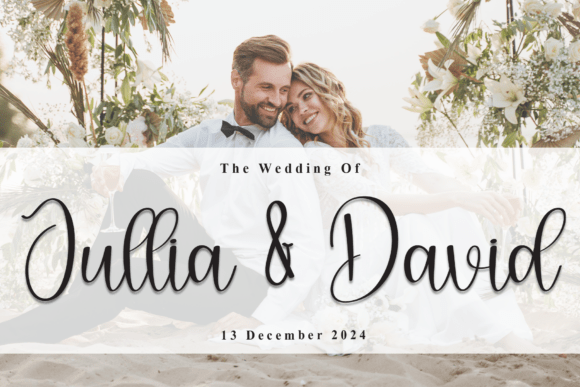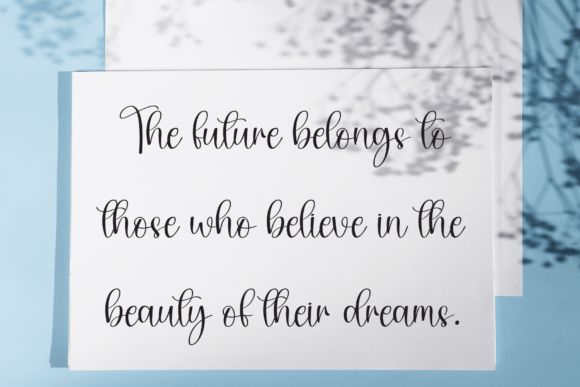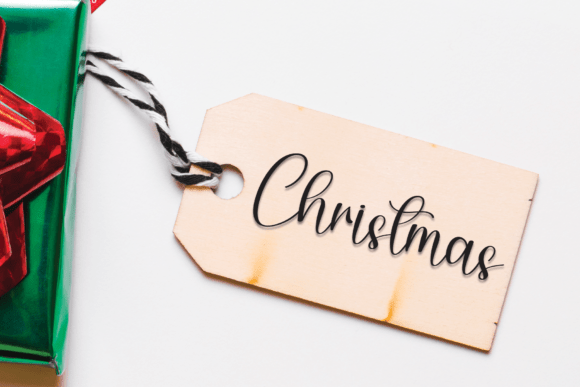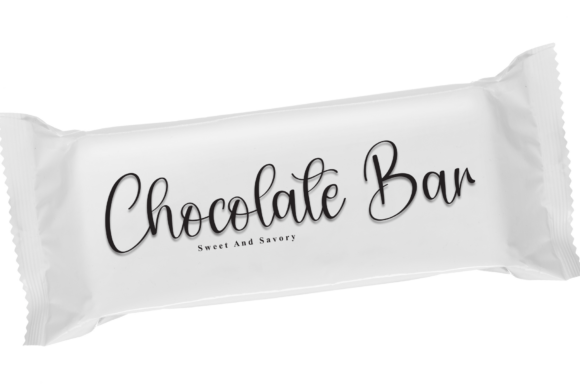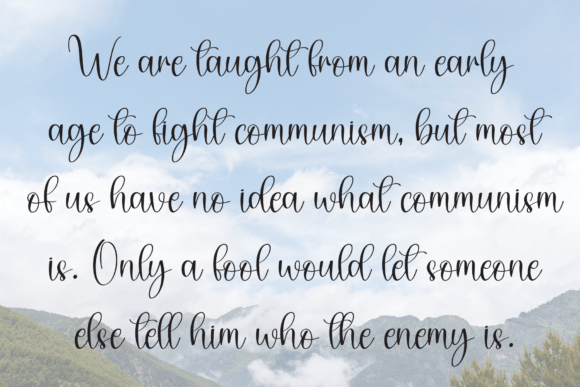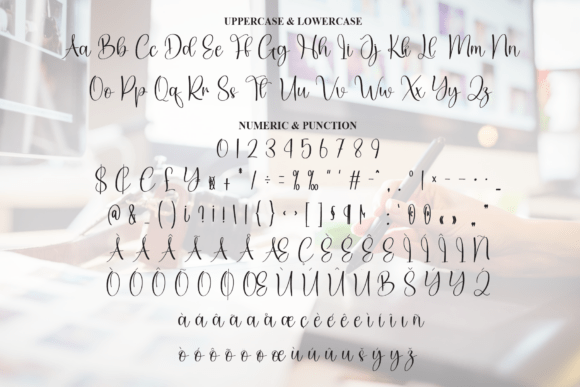
The Autography Font: Elevating Designs with Elegance and Charm
I’ll never forget the time I was working on a branding project for a luxury wedding planner. My client wanted a font that exuded sophistication, yet had a personal touch. I scoured the internet, tried countless fonts, but nothing seemed quite right. That was until I stumbled upon Autography – a stylish handwritten script font that instantly caught my eye. Its flowing strokes and organic curves brought a level of warmth and refinement that perfectly captured the essence of my client’s brand.
An Honest Review of Autography
So, what makes Autography so special? Let’s dive into the good stuff and a few quirks I’ve discovered.
- ✨ Elegant and modern design that’s perfect for high-end projects
- 💫 Supports OpenType features, glyphs, and stylistic alternates for added versatility
- 🌈 Beautifully crafted to add a personal touch to any design
While Autography is an exceptional font, there are a few things to keep in mind:
- ⚠️ May not be the best choice for very long blocks of text, as it’s designed for headlines and short paragraphs
The Story Behind Autography
Autography was crafted with the goal of creating a font that embodies both elegance and approachability. Its designer sought to create a typeface that would bring a personal touch to any project, whether it’s a luxury brand, a wedding invitation, or a social media post. With its flowing strokes and organic curves, Autography is the perfect choice for designers looking to add a refined touch to their work.
Q: What makes Autography unique?
A: Autography stands out with its elegant, modern design and highly legible letters, making it perfect for headlines, short paragraphs, and high-end projects.
Q: Does Autography support OpenType features?
A: Yes, Autography supports OpenType features, glyphs, and stylistic alternates, giving you more creative control over your text.
Q: Is Autography difficult to read at small font sizes?
A: Autography is designed to be legible even at smaller font sizes, but it’s best suited for headlines and short paragraphs.